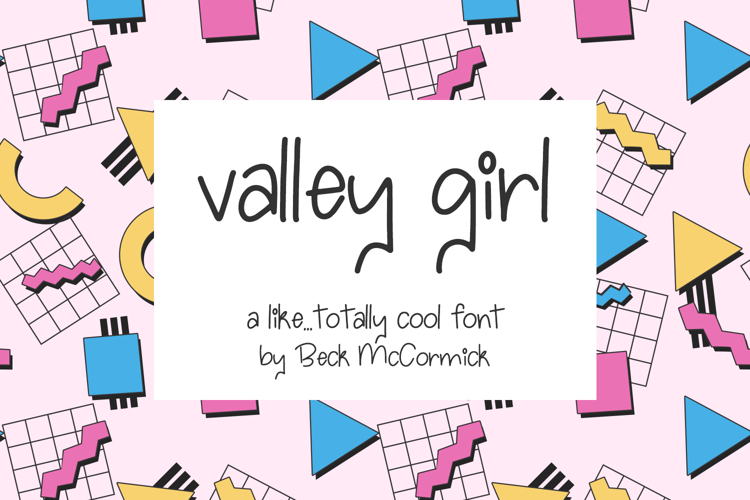
Valley Girl Handwriting Font
Valley Girl is a youthful and quirky hand lettered font. It’s the perfect fit for your digital planner or note-taking app, transporting you back to your sixth grade self’s experimental handwriting. (Like, is it cute, or bogus?) Valley Girl will be a totally rad fit for your cute home decor projects for your young daughter, your Cricut or Silhouette machine, or logo & branding projects channeling the 80’s or 90’s aesthetic.
Valley Girl Sans includes:
- 1 ligature - tt